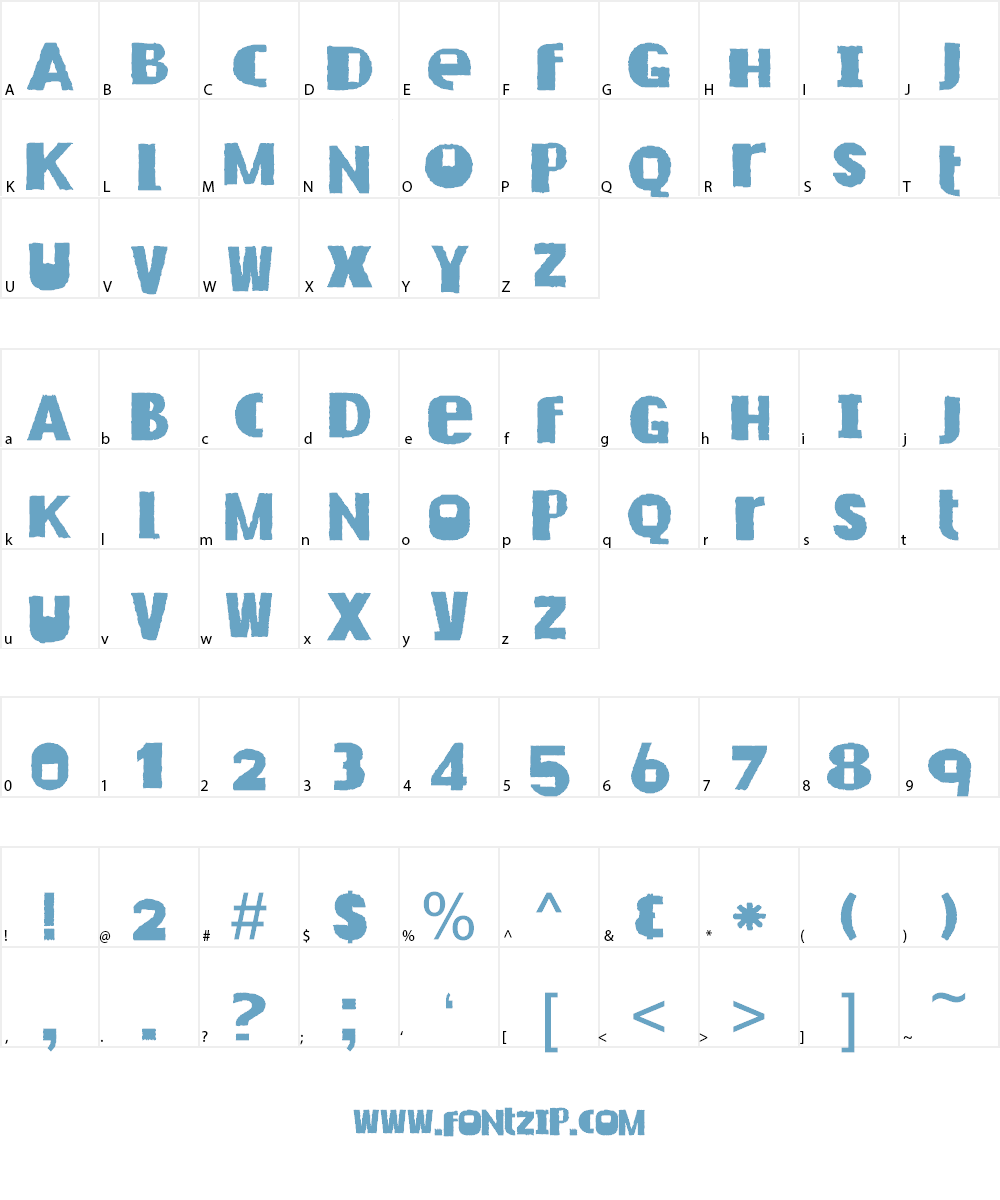
Rusty Cage is a font I named after my favorite Soundgarden song. It is uneven, mixes upper and lower case letters and is a tad grotesque. This is the demo version. The complete version (with Salt, Calt, Liga, all diacritics and kerning) is available as well. Just contact me.